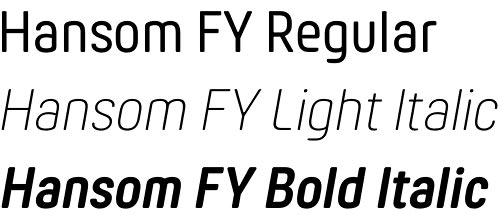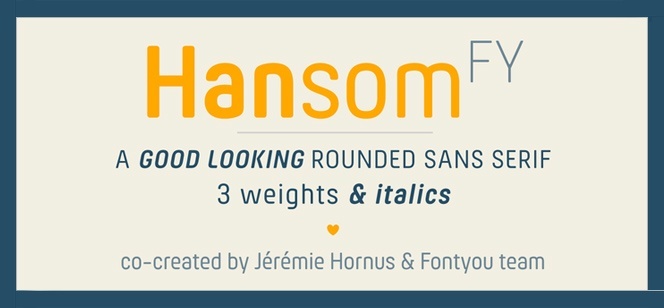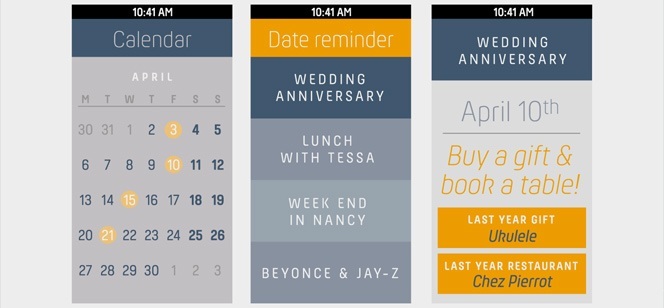
Hansom FY font
Hansom FY font is very fresh and original sans serif typeface with special round effect applied on every detail. The font uses simple but very useful geometry with higher x-height for better readability. The contrast thru all three weights inside the family is finely tuned from Light to Bold. The rounded corners make it look more friendly, more fresh and attractive. Hansom FY is one of those fonts that you really want to have and that really challenges and unlocks your creativity especially if you want to look more contemporary but at the same time with a touch of personality, without being too digital and engineered.
Each of the three weights has corresponding true italics that look even more attractive than the uprights and give you more and more options for different use of the Hansom FY family. Every character is designed with a lot of attention to the tiniest detail, softness, charm and friendliness make it perfect for lots of different designs like corporate identity, editorial design, headlines, packaging, labels and modern logos as well as for user interface font, apps and e-books.